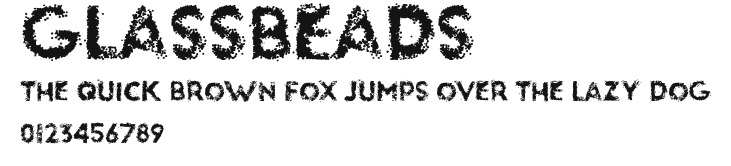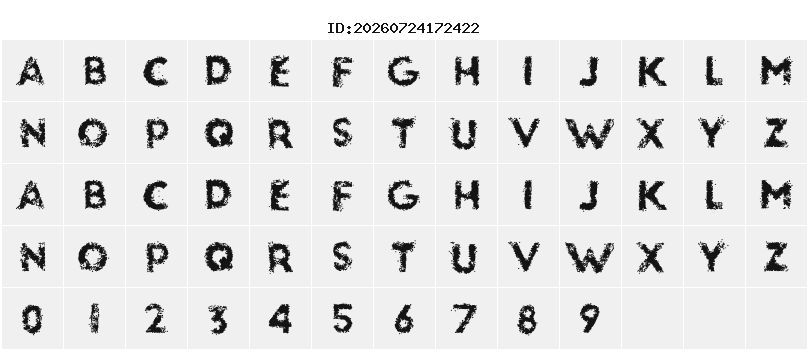
• Font Name: glassbeads
• Font ID: cruzine: glassbeads: 2015
• Full Font Name: glassbeads
• PostScript Name: glassbeads
• Character Count: 70
• Designer: cruzine
• Manufacturer: cruzine
About glassbeads.ttf
glassbeads.ttf is a modern, elegant sans-serif font designed for ultimate readability and visual harmony. Perfect for branding, headlines, web design, and print materials.